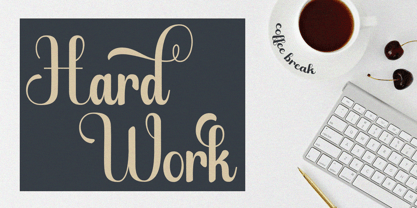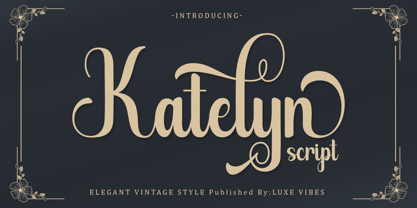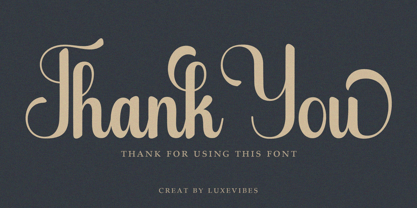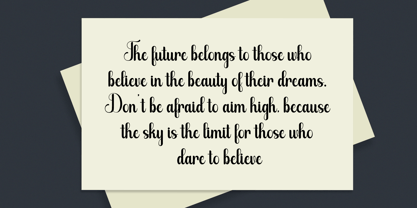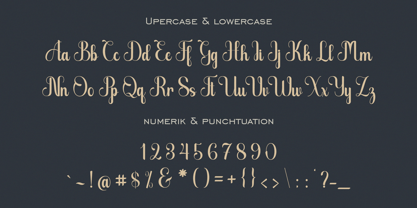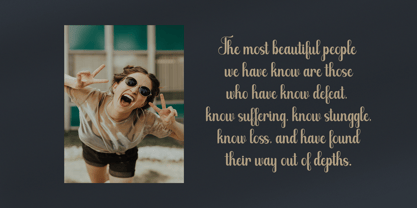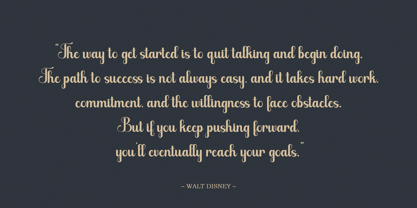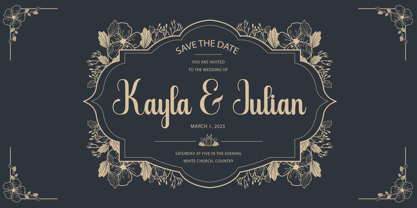
Katelyn script
by Luxe Vibes
The Katelyn script Font Family was designed by and published by Luxe Vibes. Katelyn script contains 1 styles.
Katelyn script is a script font that combines elegance with a modern, artistic touch. Known for its bold lines and expressive curves, this font carries an elegant and feminine feel, as if written with a caring hand. Each letter in Katelyn script is designed with eye-catching detail, creating a soft yet bold impression.
The design combines traditional style with more contemporary elements, making it perfect for a variety of applications from invitation design, logos, to luxury product or perfume branding. The characters in Katelyn script are elegantly upright, yet still provide clear reading, making them ideal for long texts or emphasizing specific words in a design.
The uniqueness of this font lies in the natural variations between the thickness and thinness of the lines, giving a dynamic and lively impression. Katelyn script is the right choice for those who want to present an elegant and classy impression with a touch of personal warmth.